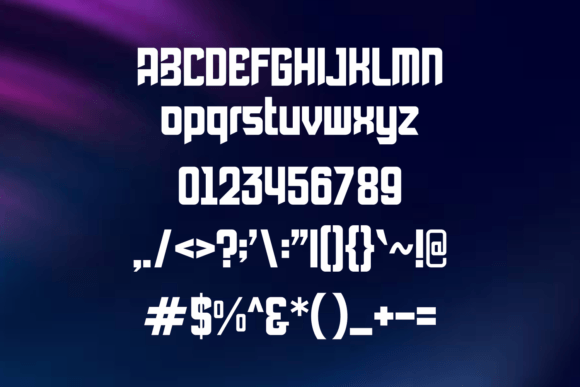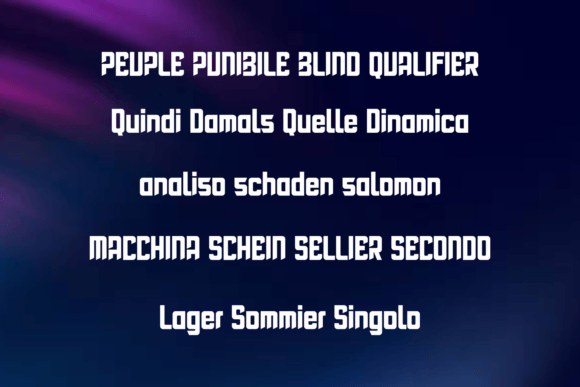
Discover the Cool and Versatile Akvocar Font
Are you tired of using the same old fonts in your designs? Look no further than the Akvocar Font, a cool and neat sans serif font that’s sure to elevate your creations. Whether you’re a designer, crafter, or simply someone who loves to dabble in typography, Akvocar is an incredible asset to have in your font library.
What Makes Akvocar Font So Special?
Akvocar Font is a sans serif font, which means it doesn’t have the small lines or flourishes that are commonly found at the ends of letters. This gives it a clean and modern look that’s perfect for a wide range of applications. But what really sets Akvocar apart is its unique blend of simplicity and style. It’s a font that’s both easy to read and visually appealing, making it perfect for everything from headings and titles to body text and more.
The Benefits of Using Akvocar Font
So why should you consider adding Akvocar Font to your collection? Here are just a few benefits you can expect:
- Versatility: Akvocar Font is incredibly versatile, making it suitable for a wide range of projects and applications. Whether you’re designing a logo, creating a brochure, or simply typing out a social media post, Akvocar is a great choice.
- Readability: Akvocar Font is extremely easy to read, even at small sizes. This makes it perfect for body text, as well as for use in digital applications like websites and mobile apps.
- Style: Akvocar Font has a unique and stylish look that’s sure to make your designs stand out. It’s a great way to add a touch of personality and flair to your work.
Who Can Benefit from Akvocar Font?
Akvocar Font is a great addition to any designer’s or crafter’s font library, regardless of their specific area of focus. Here are just a few examples of professionals who can benefit from using Akvocar:
- Graphic Designers: Akvocar Font is a great choice for graphic designers who need a versatile and stylish font for their projects. It’s perfect for use in logos, brochures, business cards, and more.
- Web Designers: Akvocar Font is also well-suited for use in digital applications like websites and mobile apps. Its clean and modern look makes it a great choice for headings, titles, and body text.
- Crafters and Makers: Akvocar Font is a great choice for crafters and makers who love to create handmade items like signs, banners, and other decorative items.
How to Use Akvocar Font in Your Designs
Using Akvocar Font in your designs is easy. Here are a few tips to get you started:
- Pair it with other fonts: Akvocar Font pairs well with a wide range of other fonts, so don’t be afraid to experiment. Try pairing it with a serif font for a classic look, or with another sans serif font for a more modern feel.
- Use it for headings and titles: Akvocar Font is a great choice for headings and titles, as it’s highly legible and visually appealing.
- Experiment with different sizes and colors: Akvocar Font looks great at a wide range of sizes and colors, so don’t be afraid to experiment. Try using it in different colors to add visual interest to your designs.
In conclusion, Akvocar Font is a cool and versatile sans serif font that’s perfect for designers, crafters, and anyone who loves typography. Its unique blend of simplicity and style makes it a great addition to any font library, and its versatility ensures that it can be used in a wide range of applications. Whether you’re designing a logo, creating a brochure, or simply typing out a social media post, Akvocar Font is a great choice. So why not give it a try and see the difference it can make in your designs?